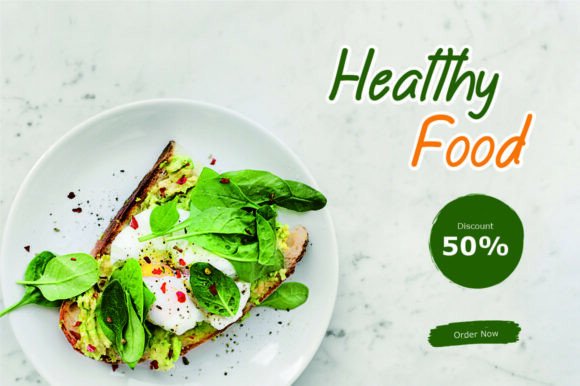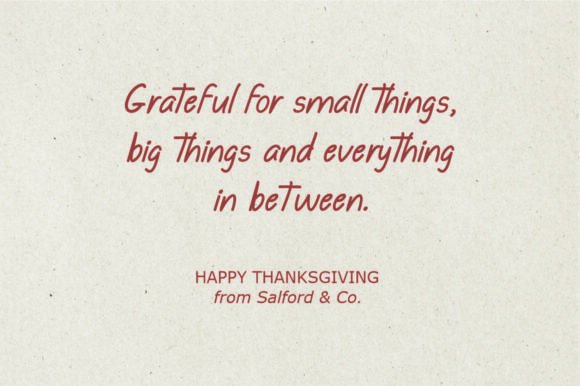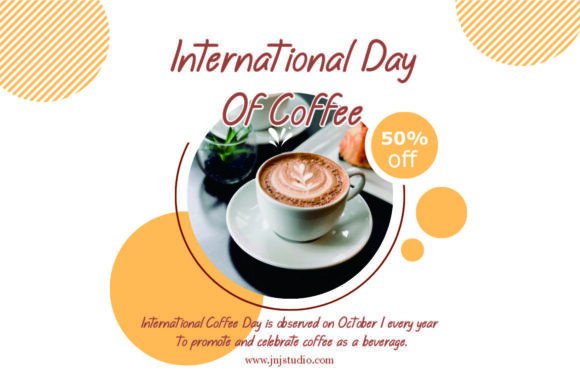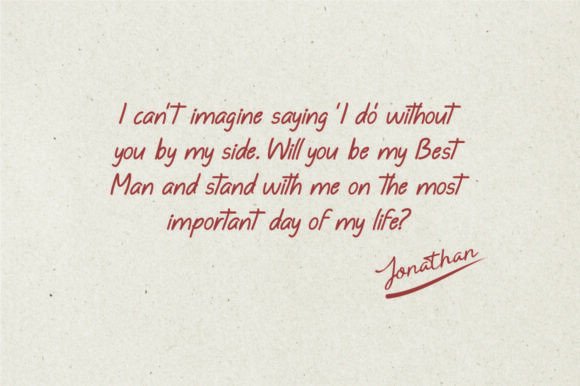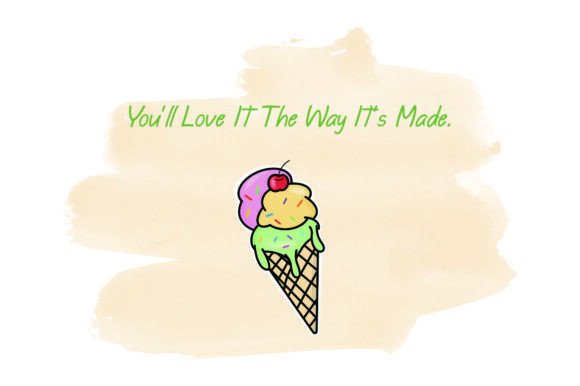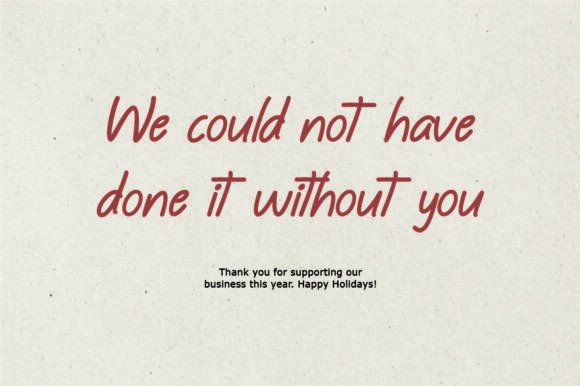
Introducing Bertaut: The Charming Handwritten Font for Personal Expression
In the world of typography, few fonts manage to convey the warmth and sincerity of handwritten script. But Bertaut, a charming handwritten font, has successfully captured the essence of personal expression and heartfelt connection. With its flowing strokes and organic curves, Bertaut is perfect for projects that require a personal touch, making it a valuable addition to any designer’s or crafter’s toolkit.
The Story Behind Bertaut
Bertaut’s unique charm lies in its ability to evoke emotions and create a sense of connection with the reader. This beautiful font is designed to mimic the natural flow of handwriting, with each letter and word carefully crafted to convey a sense of warmth and sincerity. Whether you’re working on a personal project or a professional one, Bertaut is sure to add a touch of personality and whimsy to your design.
Key Features of Bertaut
Bertaut boasts a range of features that make it an ideal choice for designers and crafters. Some of its key characteristics include:
- Flowing Strokes: Bertaut’s flowing strokes give it a natural, handwritten feel that’s perfect for creating a sense of movement and energy in your design.
- Organic Curves: The font’s organic curves add a touch of warmth and sincerity to your text, making it perfect for projects that require a personal touch.
- Handwritten Charm: Bertaut’s charming handwritten style makes it perfect for creating unique and eye-catching designs that stand out from the crowd.
- Versatile: Whether you’re working on a personal project or a professional one, Bertaut is versatile enough to adapt to any design style or theme.
Uses for Bertaut
Bertaut’s versatility makes it suitable for a wide range of projects, including:
- Personal Stationery: Add a touch of personality to your letters, cards, and invitations with Bertaut’s charming handwritten style.
- Branding and Packaging: Use Bertaut to create unique and eye-catching brand identities that stand out from the crowd.
- Web Design: Add a personal touch to your website with Bertaut’s flowing strokes and organic curves.
- Crafting and Scrapbooking: Use Bertaut to add a touch of whimsy and personality to your crafting and scrapbooking projects.
Why Choose Bertaut?
With so many fonts available, why choose Bertaut? Here are just a few reasons why this charming handwritten font stands out from the crowd:
- Unique Style: Bertaut’s unique style sets it apart from other fonts, making it perfect for designers and crafters who want to create something truly special.
- Easy to Read: Despite its handwritten style, Bertaut is easy to read, making it perfect for use in body text or captions.
- Customizable: With its range of features and versatility, Bertaut can be customized to suit any design style or theme.
In conclusion, Bertaut is a charming handwritten font that’s perfect for designers and crafters who want to add a personal touch to their projects. With its flowing strokes, organic curves, and handwritten charm, Bertaut is sure to evoke emotions and create a sense of connection with the reader. Whether you’re working on a personal project or a professional one, Bertaut is a valuable addition to any toolkit.